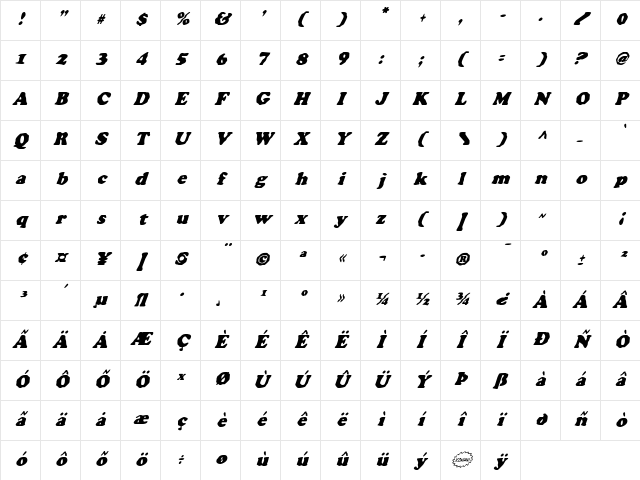
Charlemagne Condensed Italic Condensed Italic
Style: Condensed Italic
Designer: Dan Zadorozny
Charlemagne Condensed Italic Family
Design Context for Charlemagne Condensed Italic
Charlemagne Condensed Italic is a composed and adaptable typeface that performs quietly and consistently across a wide range of design contexts. The slanted form adds forward momentum and visual energy. Its narrow stance lets it pack a punch even in space-constrained designs.
Pro Tip: Use Charlemagne Condensed Italic for emphasis, pull quotes, and subheadings where its slanted energy can add rhythm to the layout.